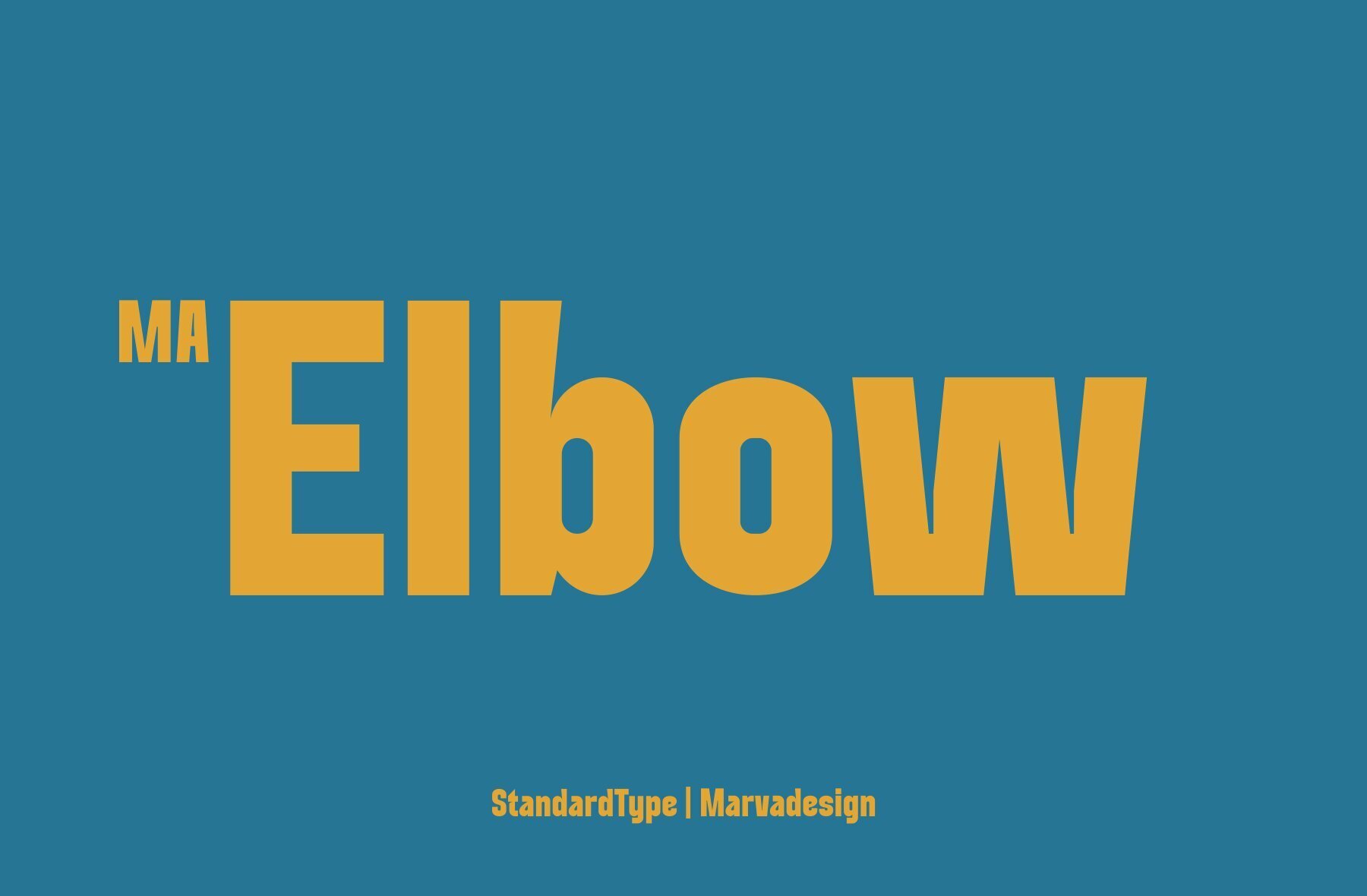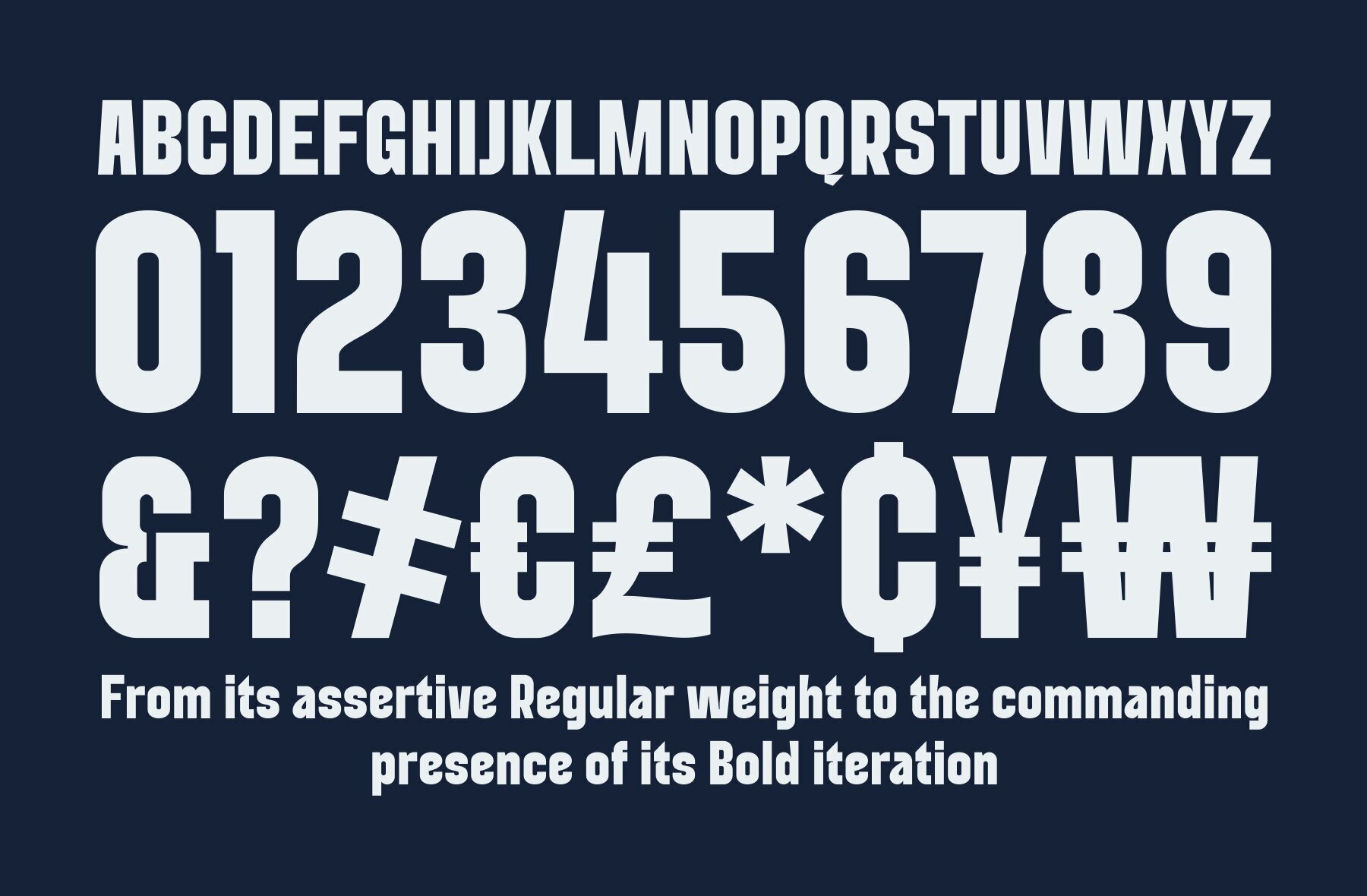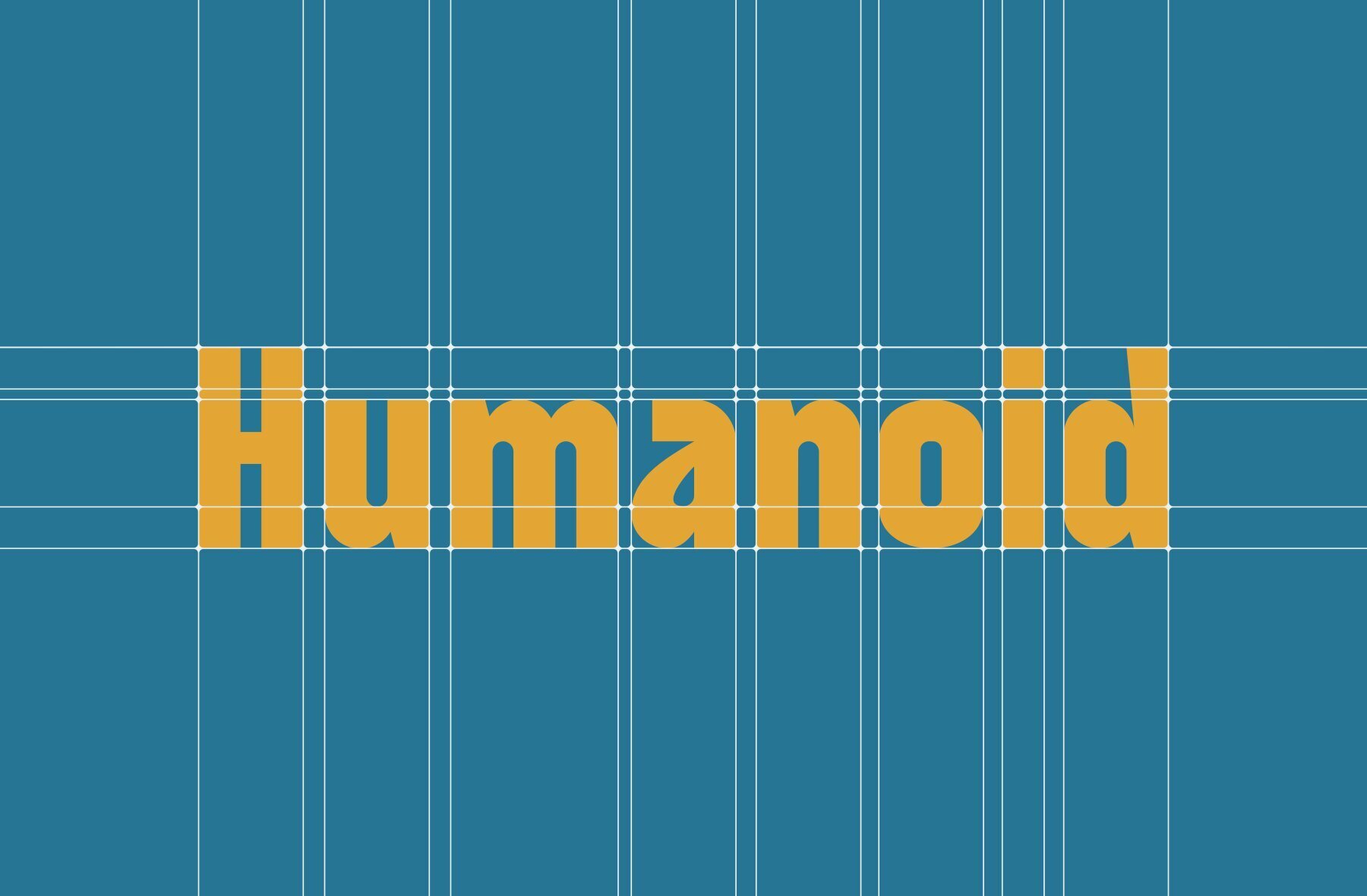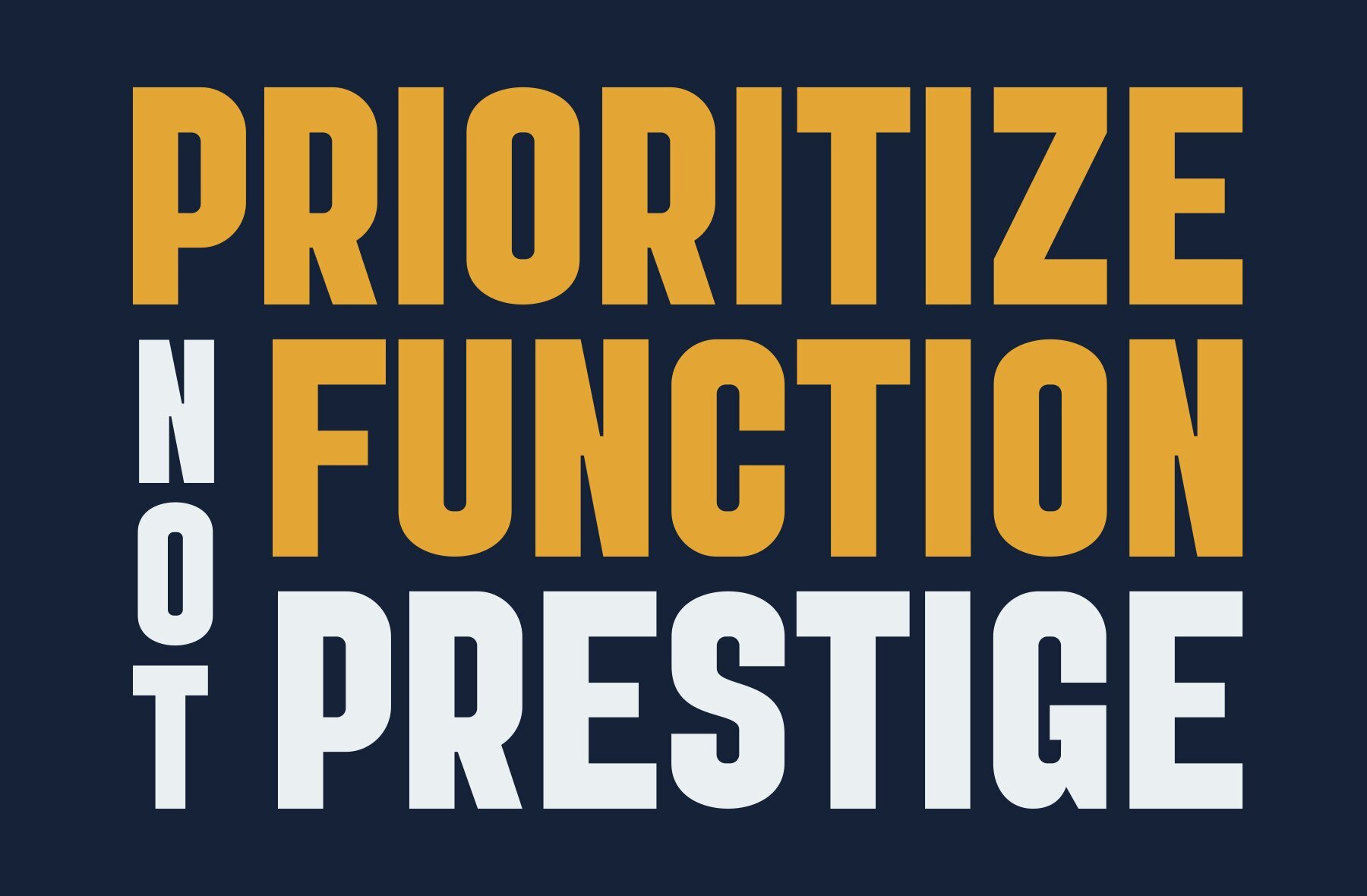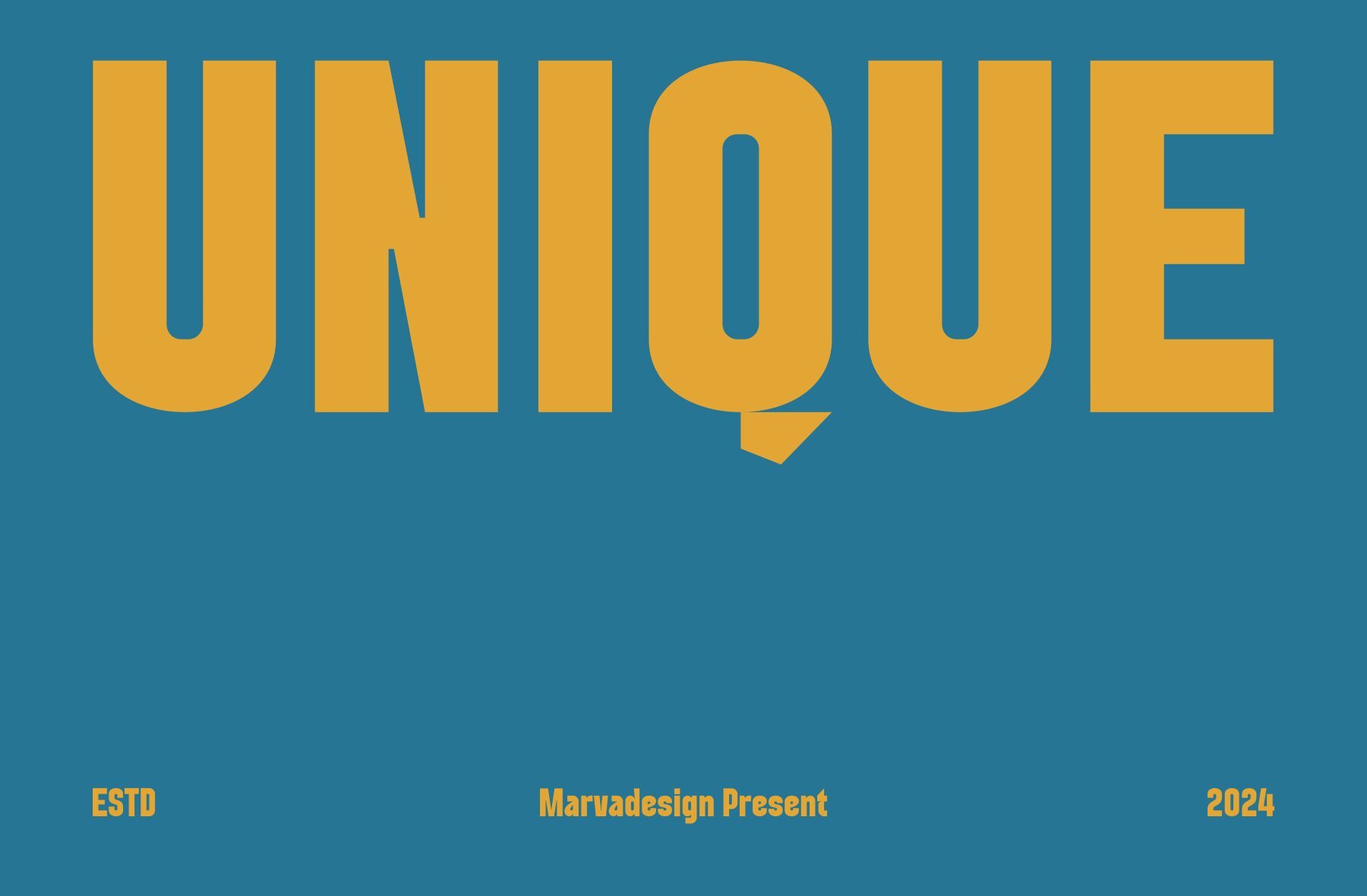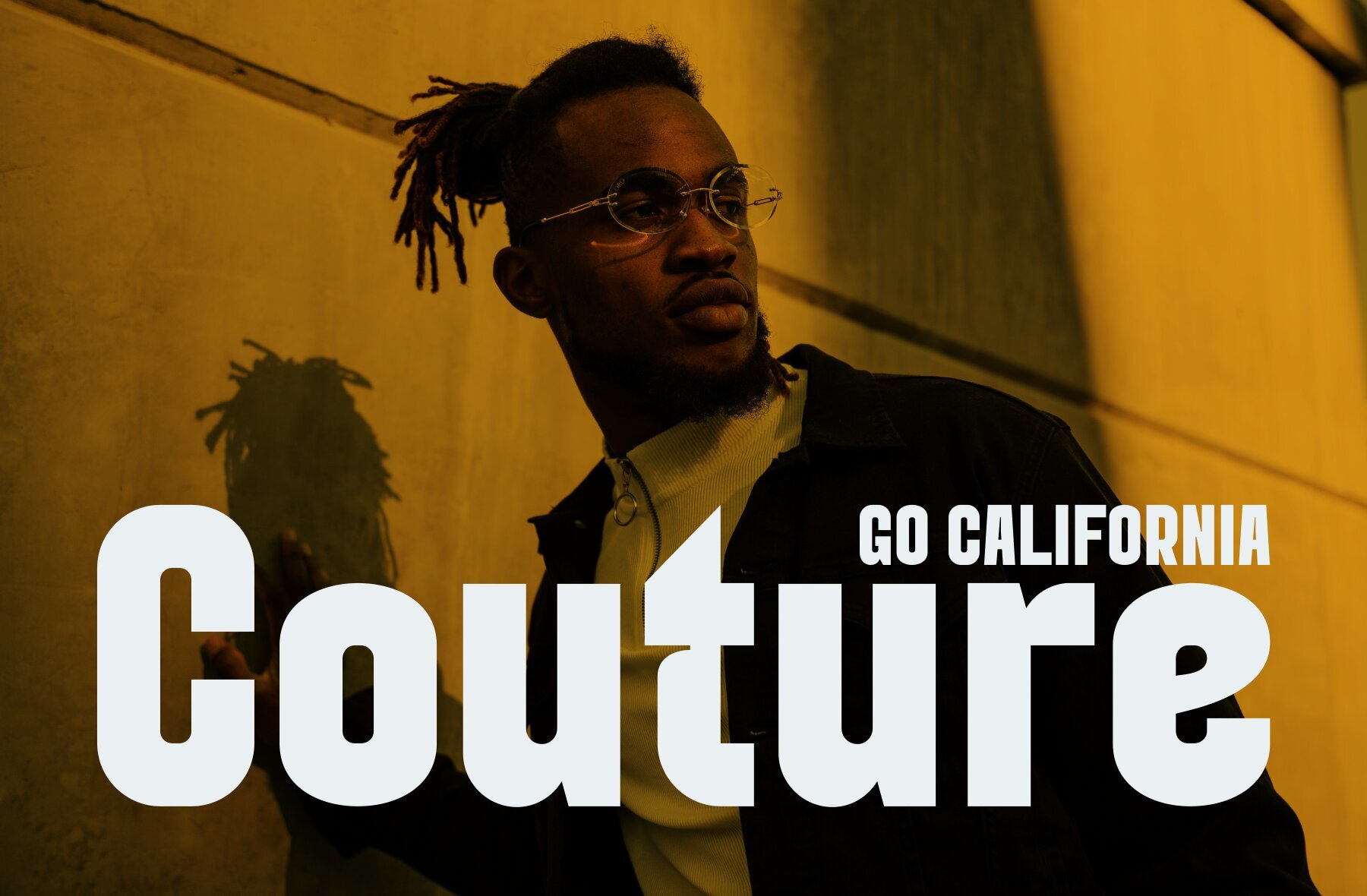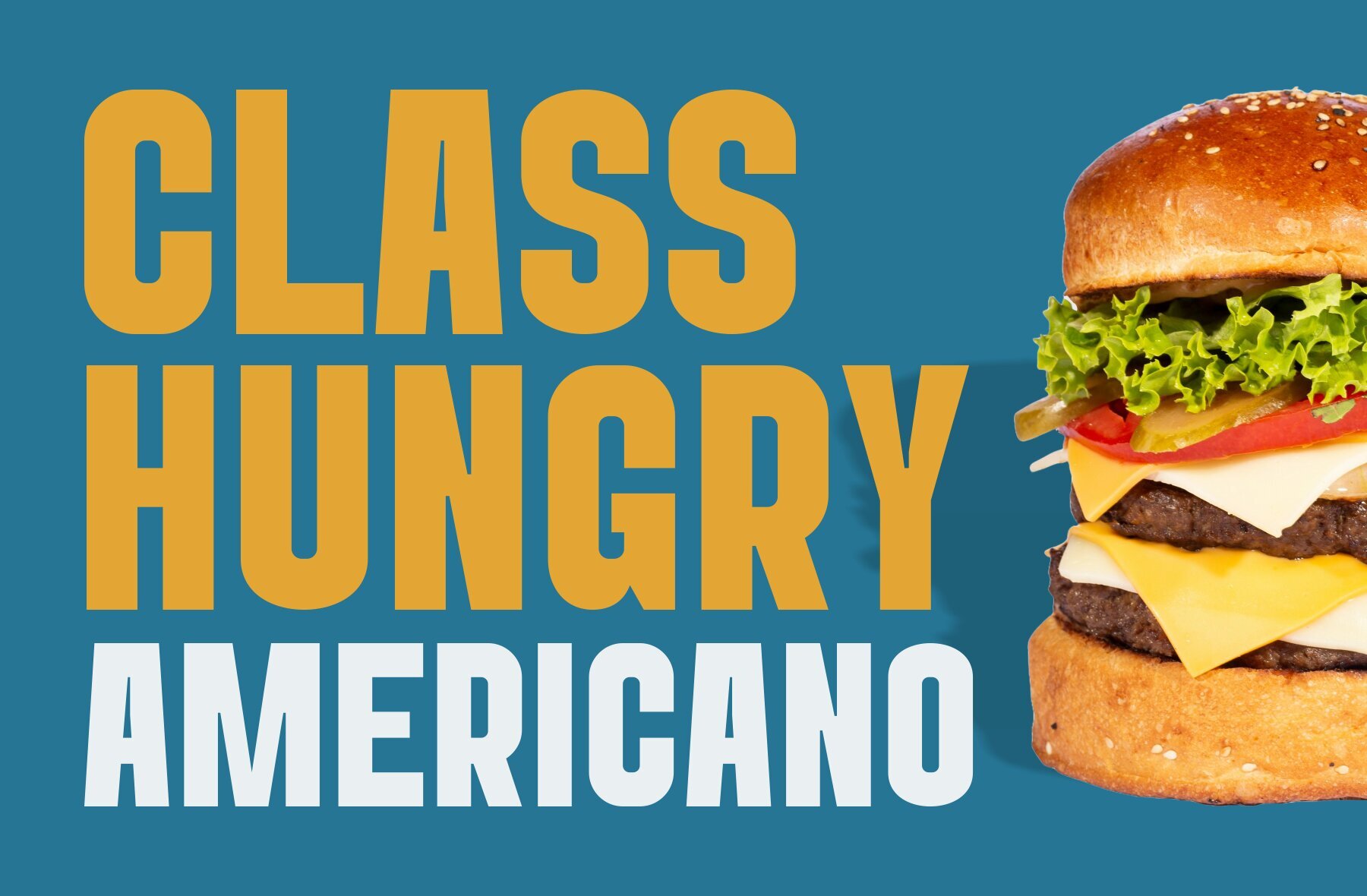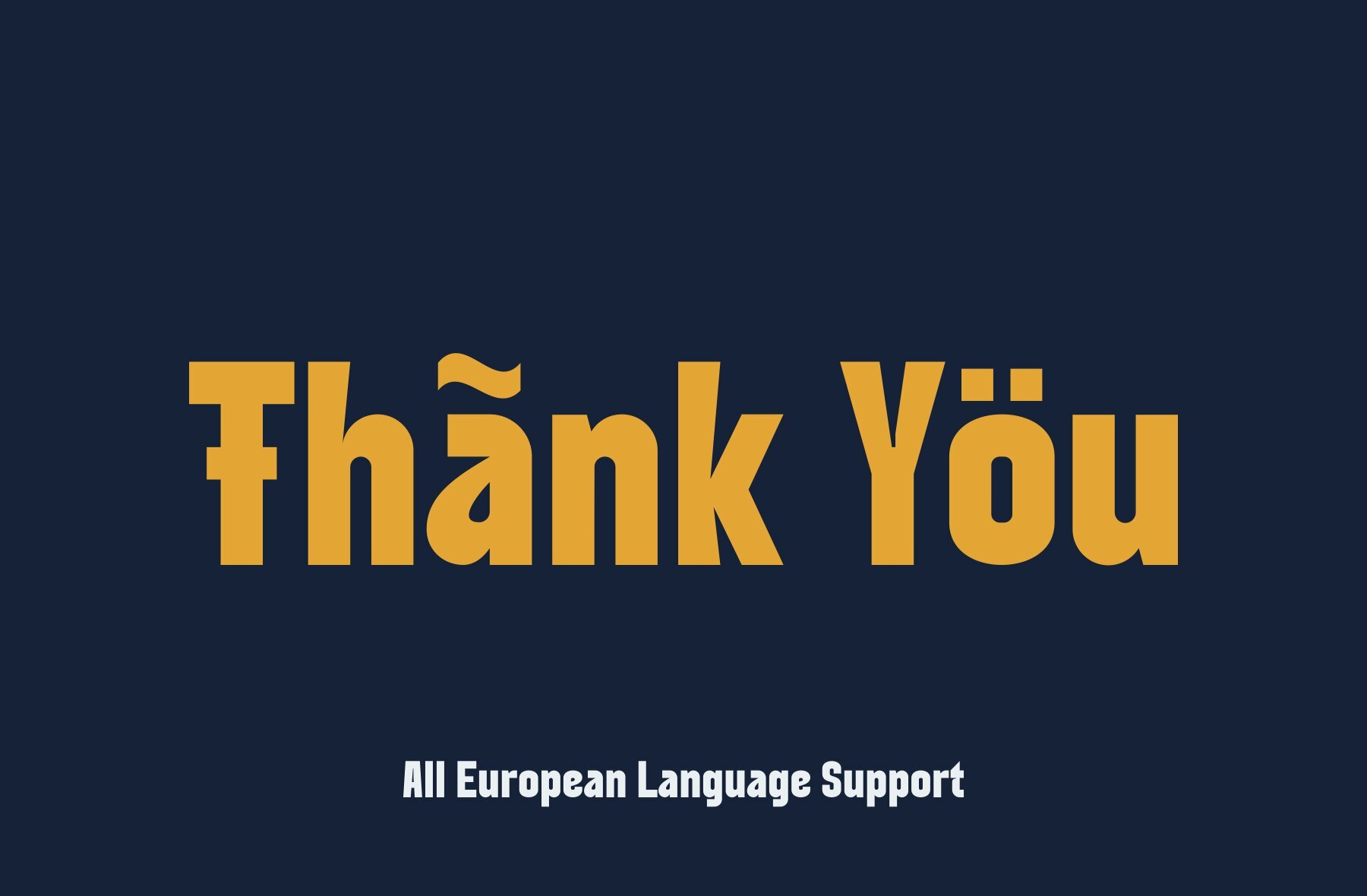
Ma Elbow Font
Ma Elbow Regular
This font is a bold, sans-serif typeface characterized by its heavy and geometric construction. It echoes modernist design principles with a minimalist and industrial feel. Its high-impact, blocky letterforms make it ideal for attention-grabbing headlines, signage, and any application where legibility and strong visual presence are required.